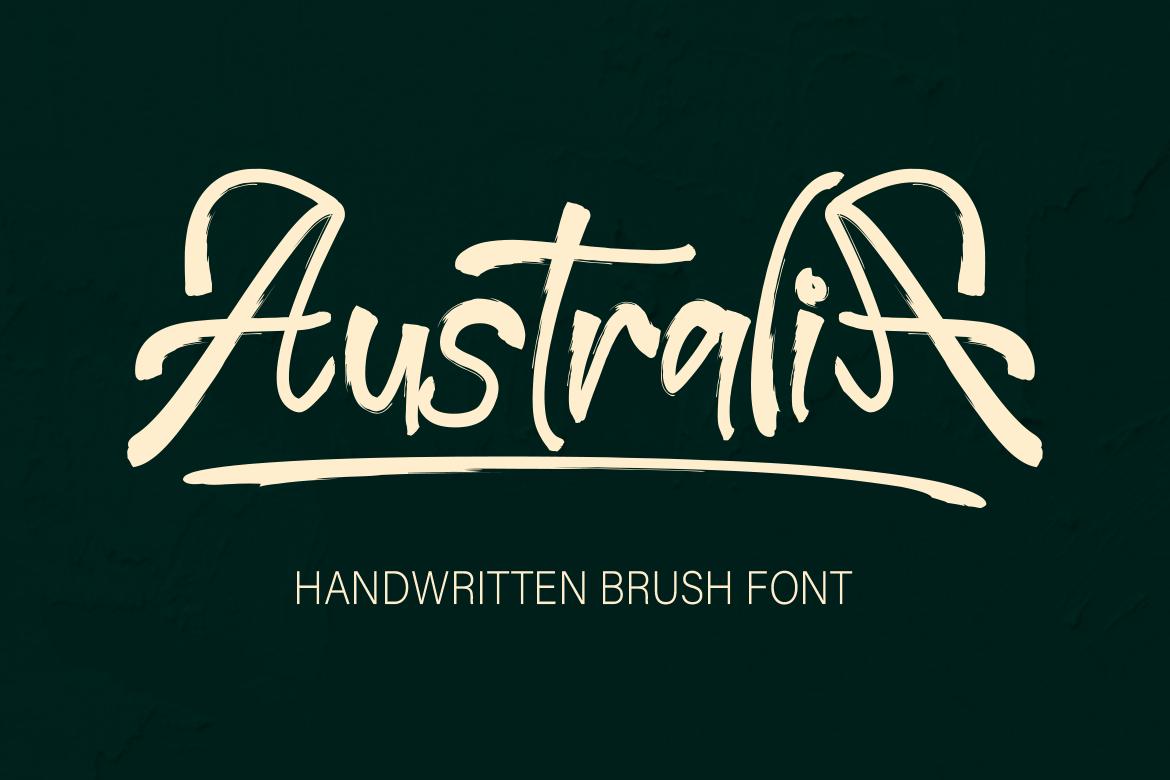
Australia Font Description
Australia is a delicate and eye-catching handwritten font. It is amazingly easy to use for a variety of design needs such as logos, brands, packaging, book titles, and more. This font is PUA encoded which means you can access all of the glyphs and swashes with ease!